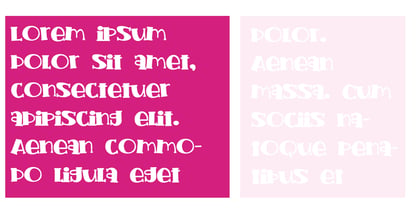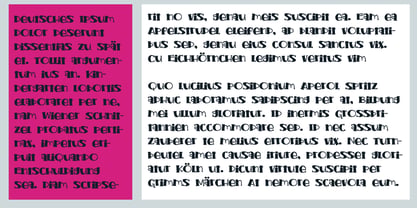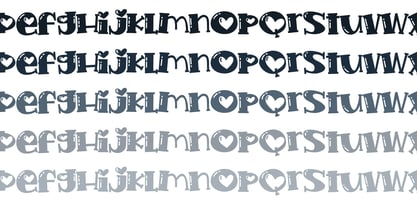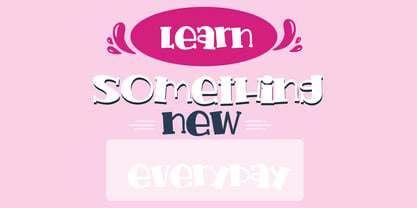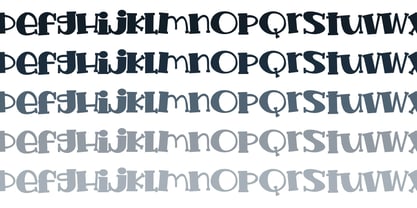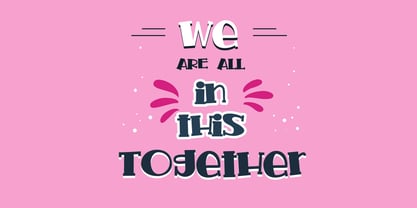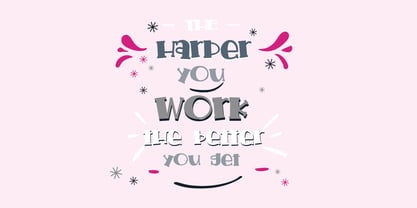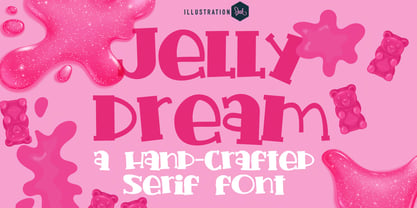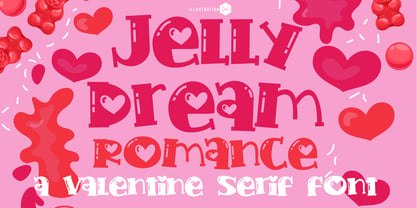
PN Jelly Dream
by Illustration Ink
The PN Jelly Dream Font Family was designed by Illustration Ink and published by Illustration Ink. PN Jelly Dream contains 7 styles and family package options. More about this family
This hand-crafted font is a whimsical, sans serif with some family members sporting hearts and throbs. There are 7 variations included. A hand-crafted font is a font that is designed to look like it was written by hand. It is often used for invitations, greeting cards, and other items. Handwritten fonts can be either formal or informal, and they can be used for a variety of purposes. Some of the characteristics of handwritten fonts include: The letters are not perfectly uniform in size or shape. There may be slight variations in the spacing between letters and words. The font may have a "wiggly" or "squiggly" appearance. The font may be difficult to read at small sizes. Handwritten fonts can be a great way to add a casual touch to your designs. They can also be used to create a sense of nostalgia or whimsy. However, it is important to choose a handwritten font that is appropriate for the project you are working on. A formal handwritten font may not be appropriate for a casual invitation, while an informal handwritten font may not be appropriate for a corporate document.
Designers: Illustration Ink
Foundry: Illustration Ink